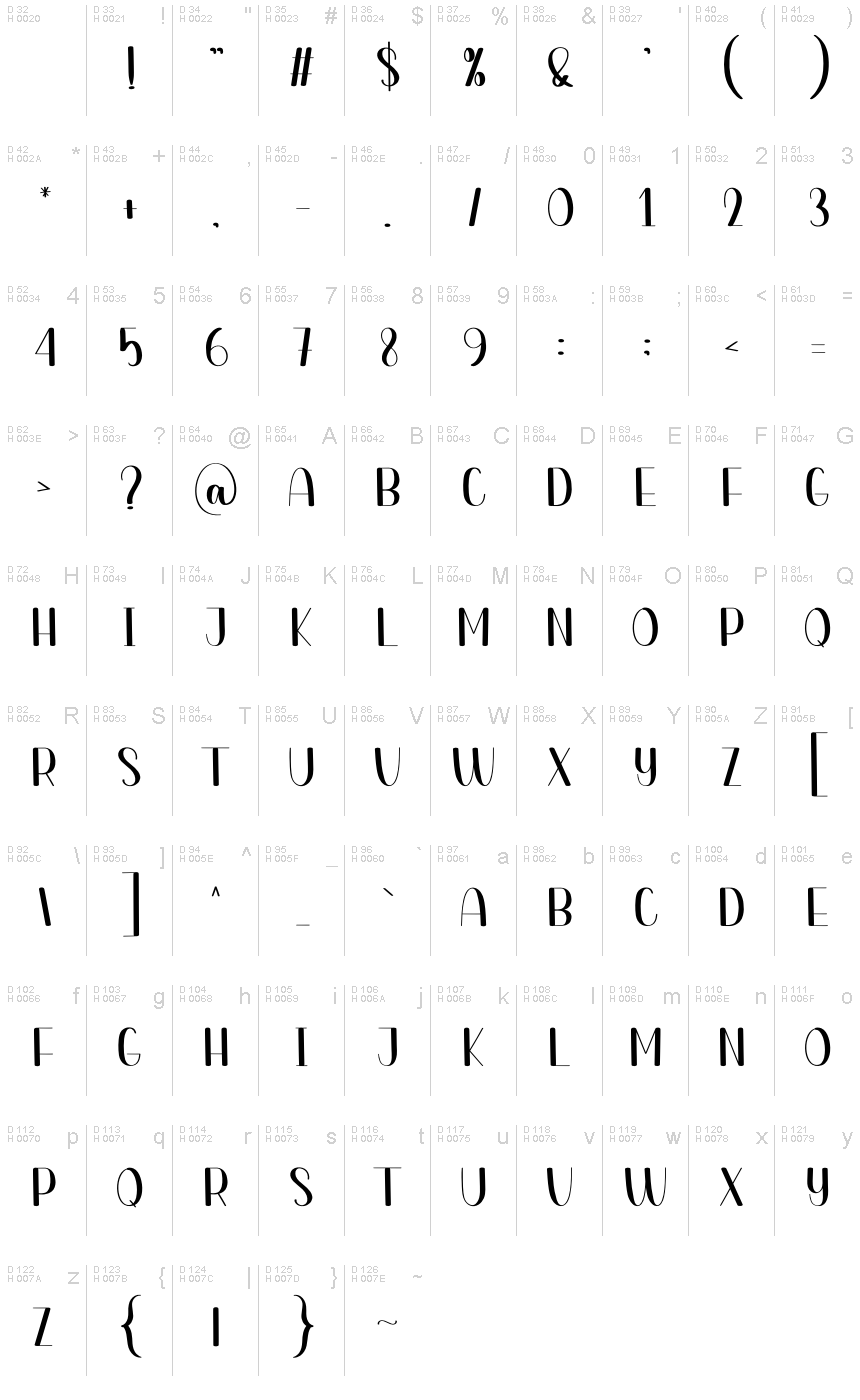
Manager
The Manager font, crafted by Scratchones, is a striking handwritten style that exudes personality and charm. Its unique characteristics lie in its slightly expanded form, capturing an essence of elegance and modern flair. This free font's artistic flair makes it perfect for projects that require a touch of sophistication and creativity.
With its eye-catching design, the Manager font is ideal for branding materials, invitations, or any creative project seeking a standout feature. Whether used in digital or print media, its distinctive appeal makes it versatile for various applications.